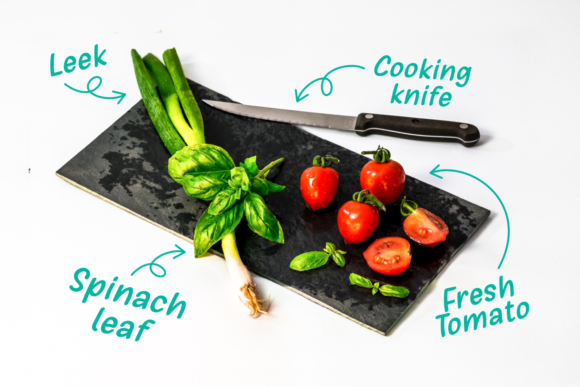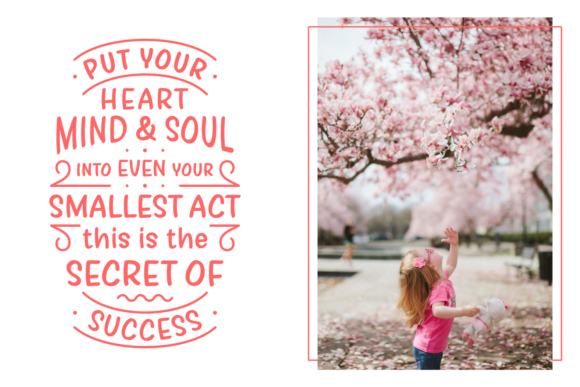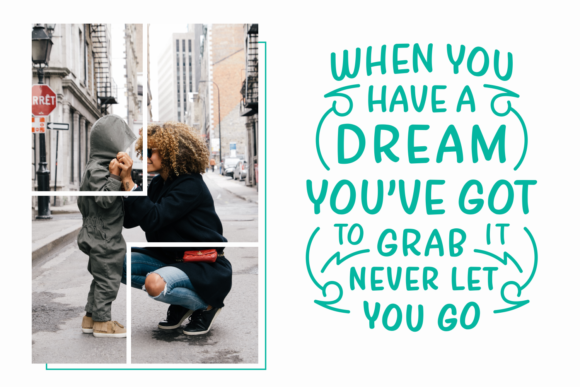
Girls Marks Font: A Cute and Versatile Handwritten Font for Designers and Crafters
Are you a designer or crafter looking for a unique and charming font to add a personal touch to your projects? Look no further than Girls Marks Font! This adorable, handwritten font is perfect for creating beautiful and eye-catching designs that are sure to stand out. In this article, we’ll take a closer look at Girls Marks Font, its features, and how you can use it to elevate your designs.
What is Girls Marks Font?
Girls Marks Font is a cute, handwritten font with a smooth look and feel. Its elegant and flowing script makes it perfect for a variety of design projects, from invitations and greeting cards to social media graphics and blog posts. The font comes in two beautiful variations, giving you lots of options to play with and create the perfect design.
Key Features of Girls Marks Font
- Cute and Handwritten: Girls Marks Font has a charming, handwritten look that’s perfect for creating personal and unique designs.
- Smooth Look and Feel: The font has a smooth and elegant script that’s easy on the eyes.
- Two Beautiful Variations: Girls Marks Font comes in two stunning variations, giving you plenty of options to experiment with and find the perfect fit for your design.
- Versatile: This font is perfect for a wide range of design projects, from digital graphics to print materials.
How to Use Girls Marks Font in Your Designs
Girls Marks Font is incredibly easy to use and can be incorporated into a variety of design projects. Here are a few ideas to get you started:
- Invitations and Greeting Cards: Use Girls Marks Font to create beautiful and personalized invitations and greeting cards for special occasions.
- Social Media Graphics: Add a touch of personality to your social media graphics with Girls Marks Font.
- Blog Posts: Use Girls Marks Font to create eye-catching headings and titles for your blog posts.
- Crafting Projects: Girls Marks Font is perfect for crafting projects, such as making personalized signs, banners, and other decorative items.
Tips for Getting the Most Out of Girls Marks Font
Here are a few tips for getting the most out of Girls Marks Font:
- Experiment with Different Sizes: Try out different font sizes to see how Girls Marks Font looks in various contexts.
- Pair with Other Fonts: Experiment with pairing Girls Marks Font with other fonts to create a unique and visually appealing design.
- Use in Combination with Images: Use Girls Marks Font in combination with images to create a beautiful and eye-catching design.
Girls Marks Font is a versatile and charming handwritten font that’s perfect for designers and crafters looking to add a personal touch to their projects. With its smooth look and feel, and two beautiful variations, this font is sure to become a favorite in your design toolkit. Whether you’re creating invitations, social media graphics, or crafting projects, Girls Marks Font is the perfect choice. So why wait? Download Girls Marks Font today and start creating beautiful and unique designs!